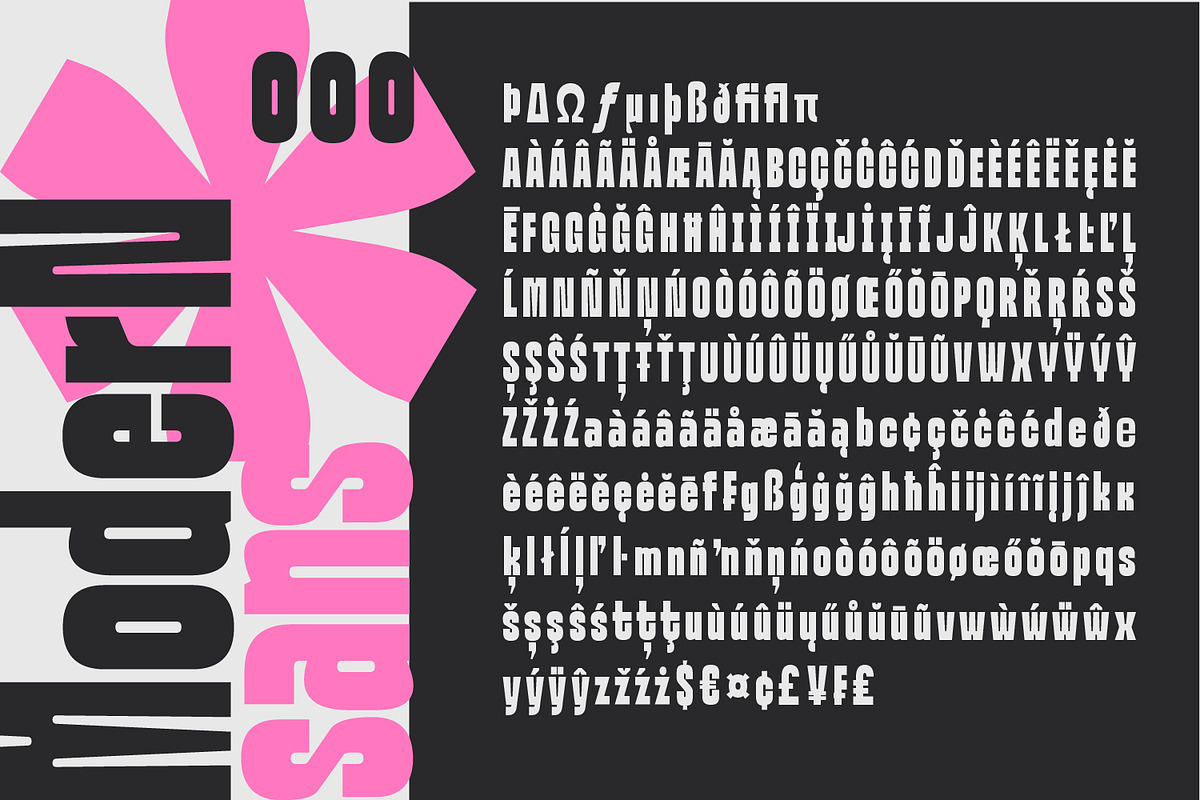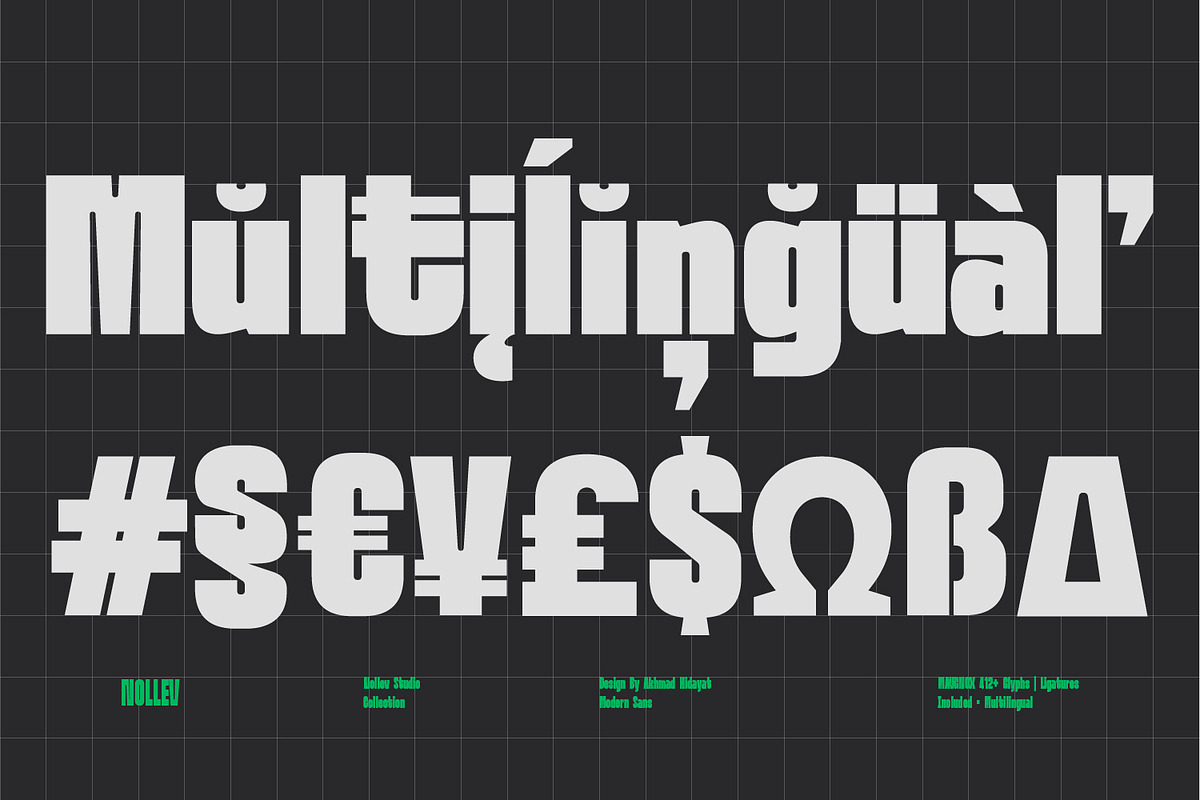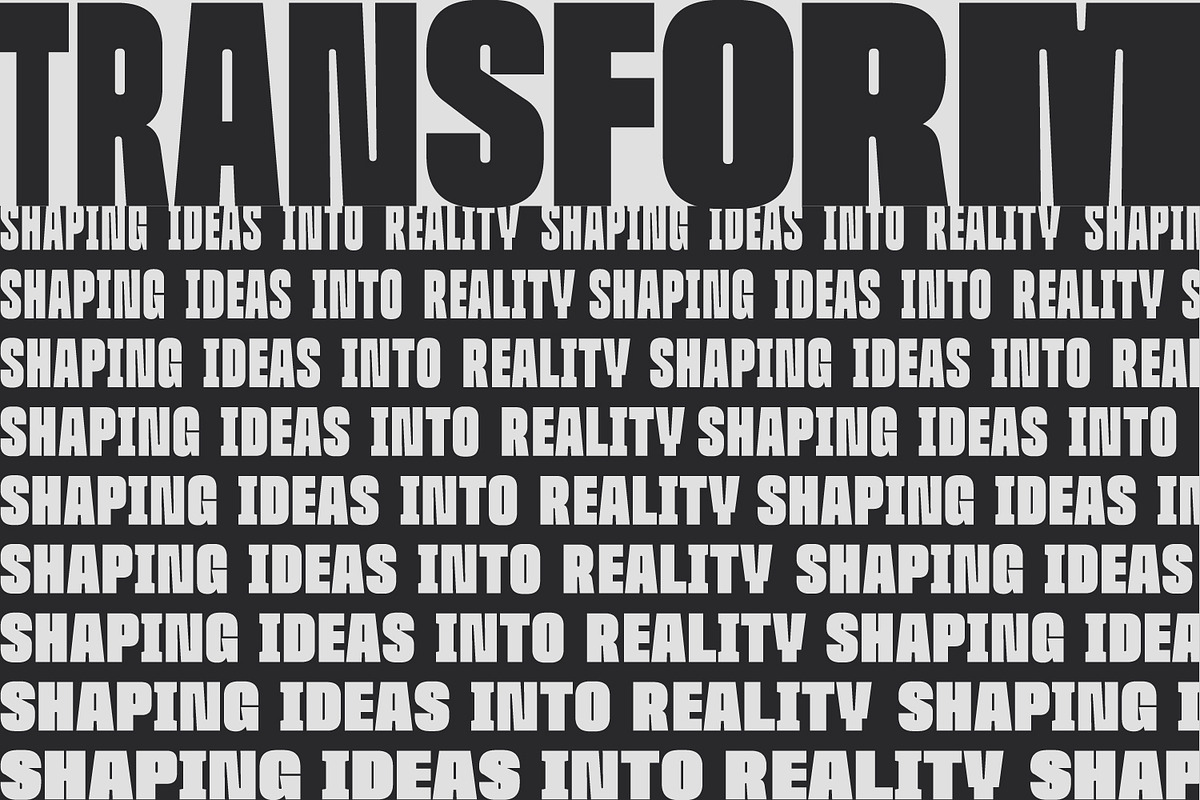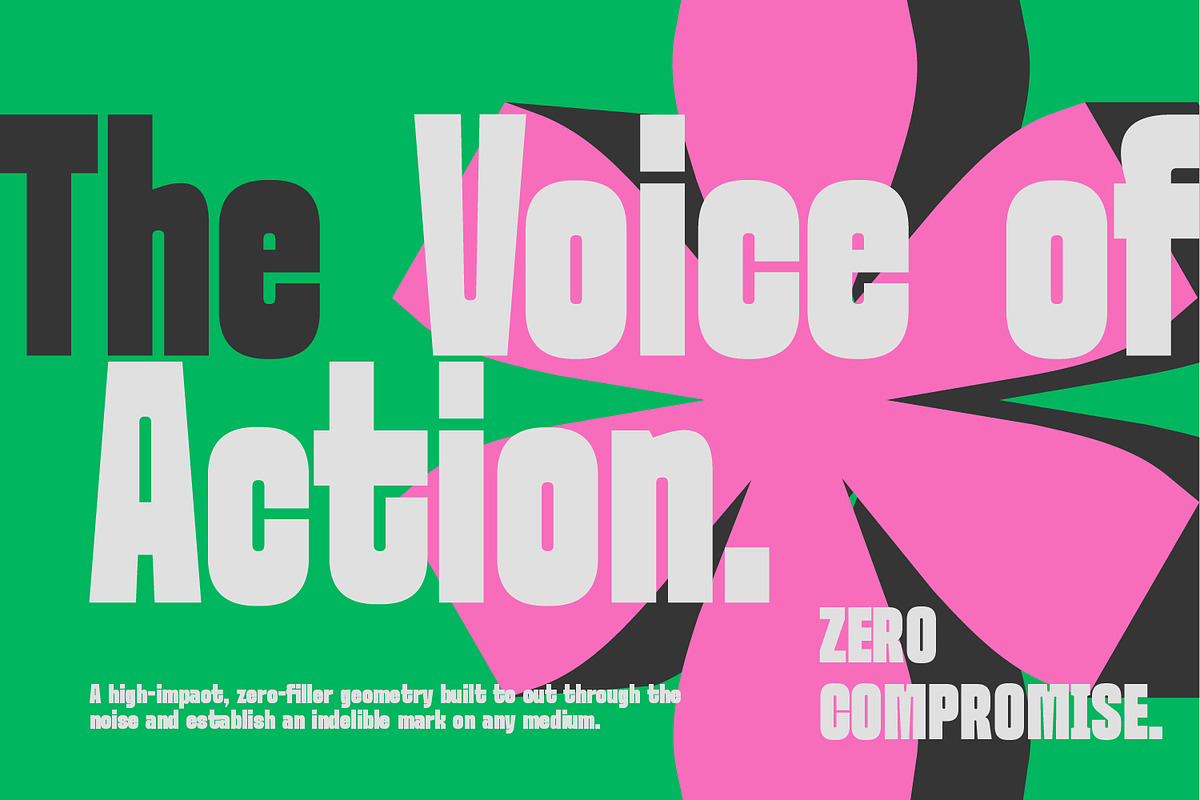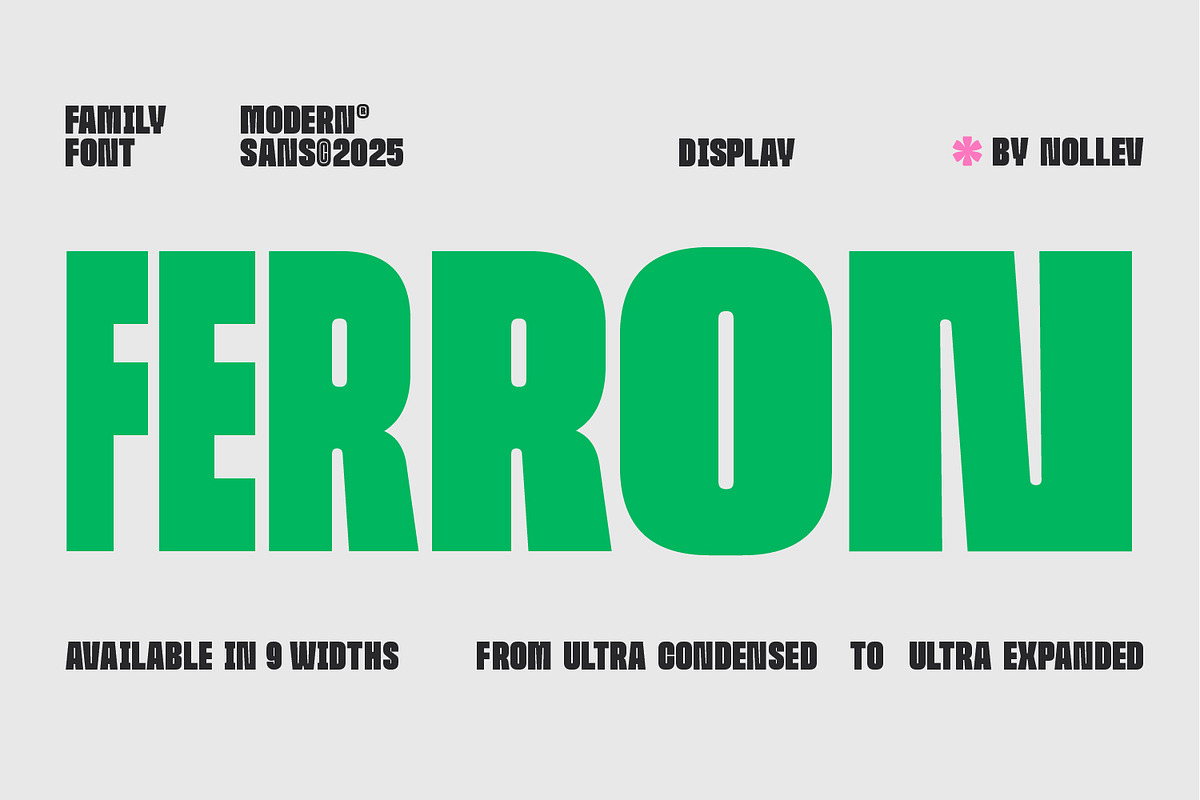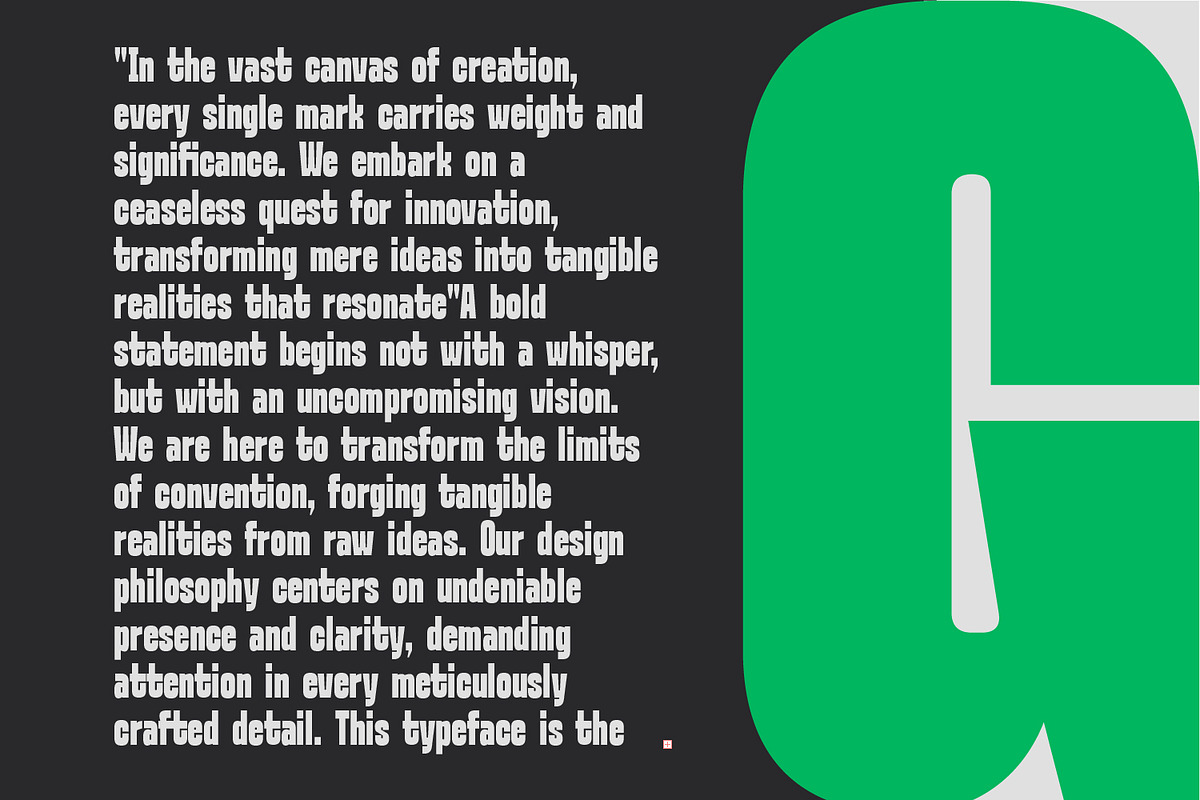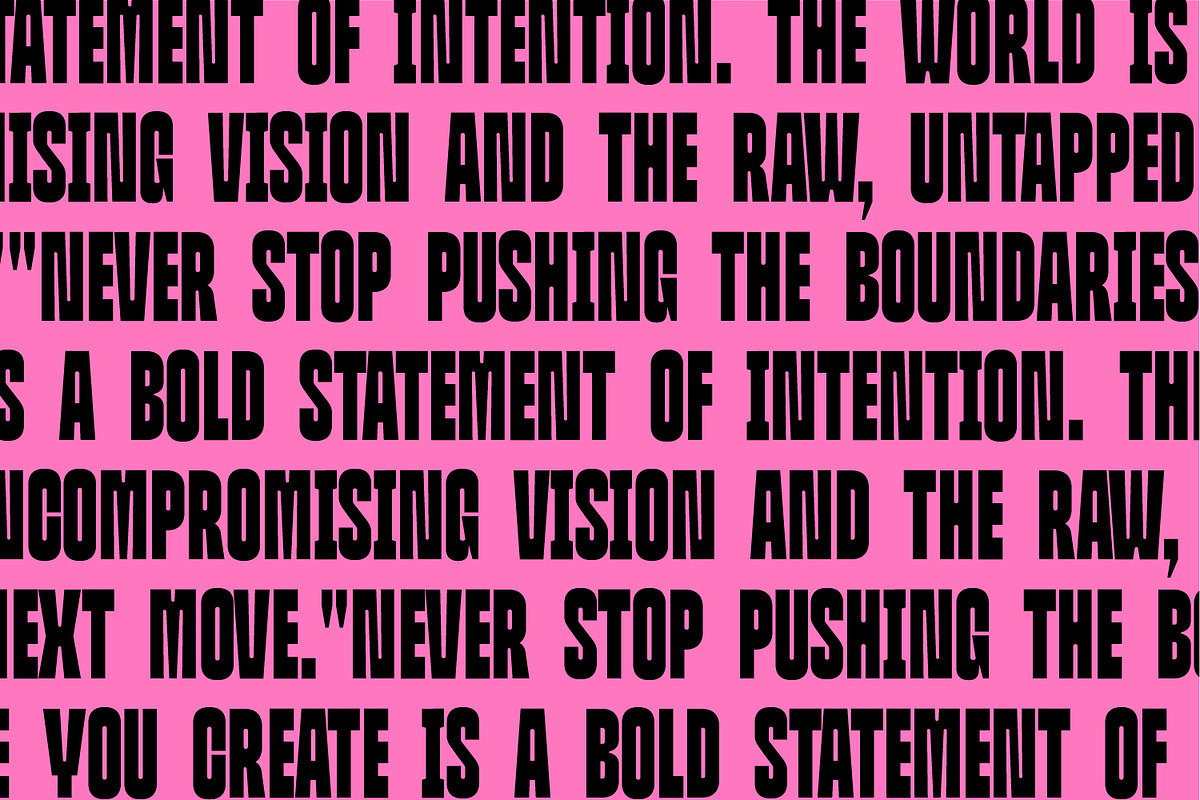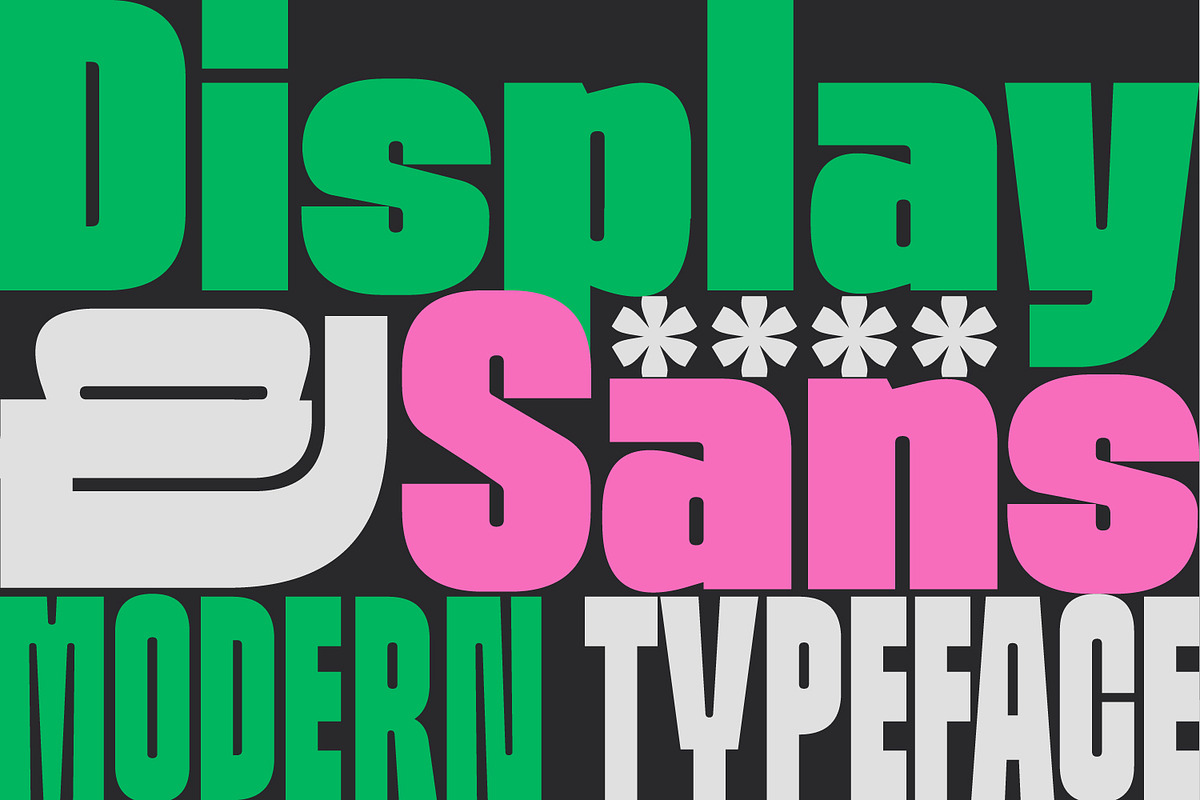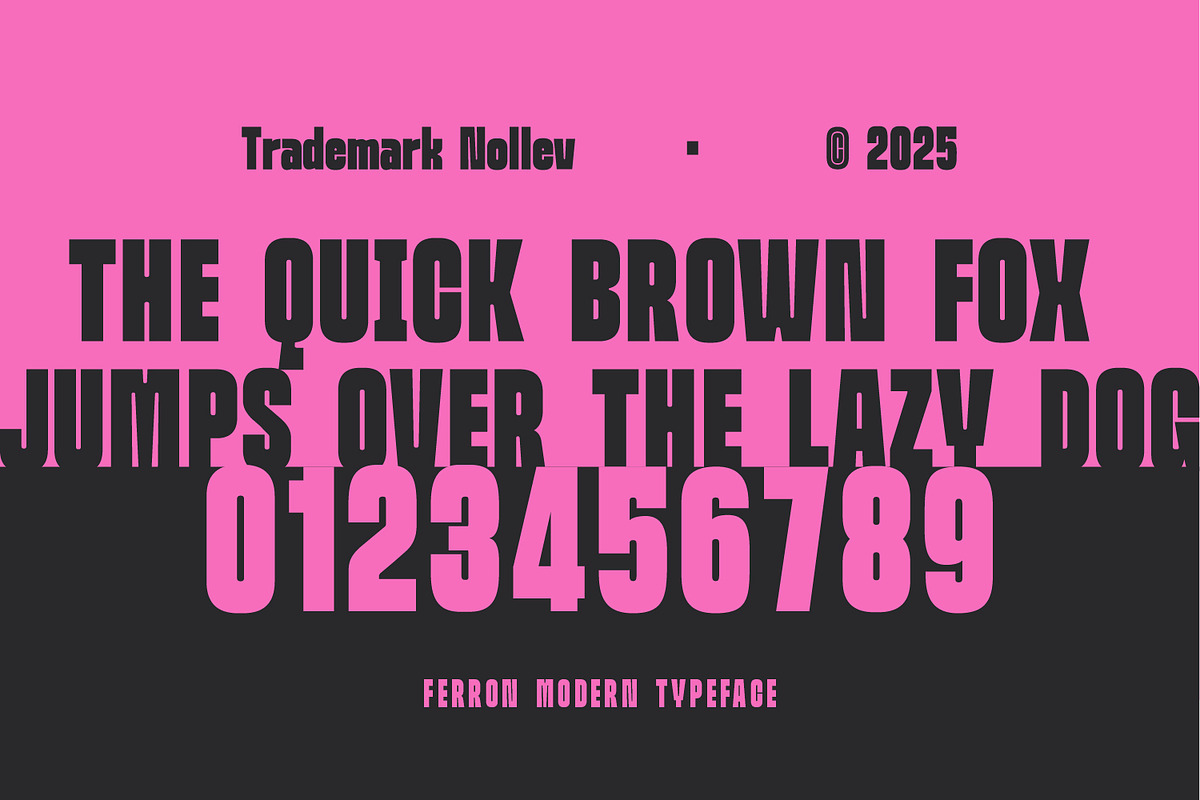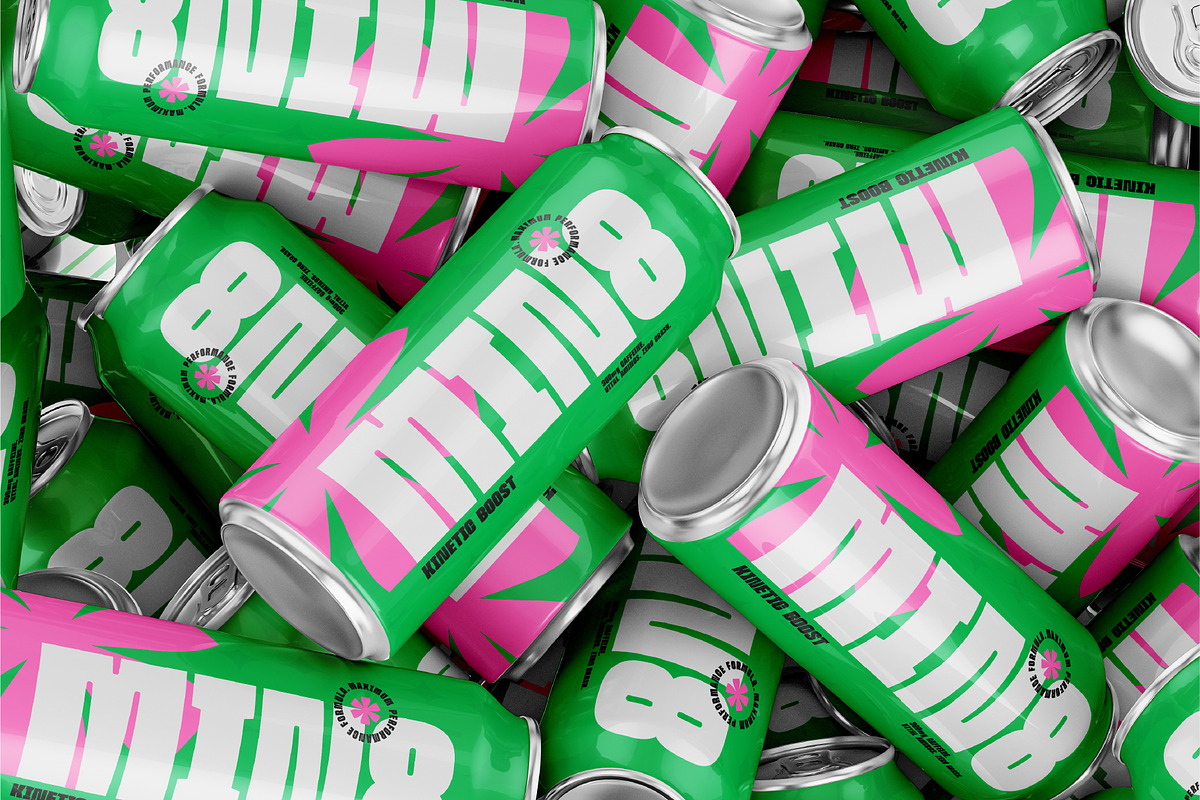
Ferron – Bold Sans (9 Widths)
Ferron is a bold and powerful modern sans-serif display font designed to make a statement. Crafted with strong geometric shapes and sharp proportions, Ferron delivers a confident presence that fits perfectly in contemporary design — from posters and headlines to branding and digital visuals.
The font family includes 9 widths, ranging from Ultra Condensed to Ultra Expanded, allowing you to create dynamic compositions with maximum visual flexibility. Every style keeps its balance between strength and simplicity, making Ferron ideal for both minimalist and expressive layouts.
9 widths: Ultra Condensed → Ultra Expanded
Bold & geometric display design
Uppercase & lowercase letters
Perfect for impactful and creative typography projects
Posters & headlines
Modern branding
Editorial design
Packaging & signage
Digital and social media visuals
- Designed by Nollev Studio, Ferron brings a mix of power, precision, and modern attitude — built for designers who want their typography to stand out with boldness and clarity.